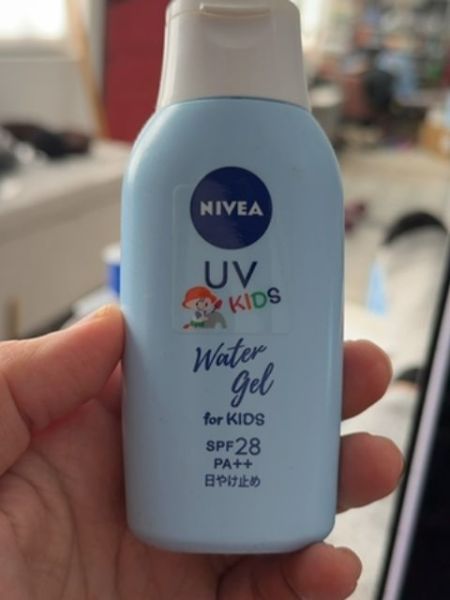
Nivea UV Water Gel for Kids
This product is a sunscreen gel designed specifically for children, offering SPF28 protection against harmful UV rays.
The typography combines a modern sans-serif typeface for its primary text, conveying a sense of safety and reliability. The playful use of handwritten-style font for 'Water gel' adds a child-friendly touch, enhancing the product's appeal to both children and parents.
The packaging features a soft blue plastic bottle with a smooth finish, making it easy to hold. The label is vibrant, with playful imagery appealing to a younger audience.
- Provides SPF28 protection.
- Formulated for children's sensitive skin.
- Water gel texture for easy application.